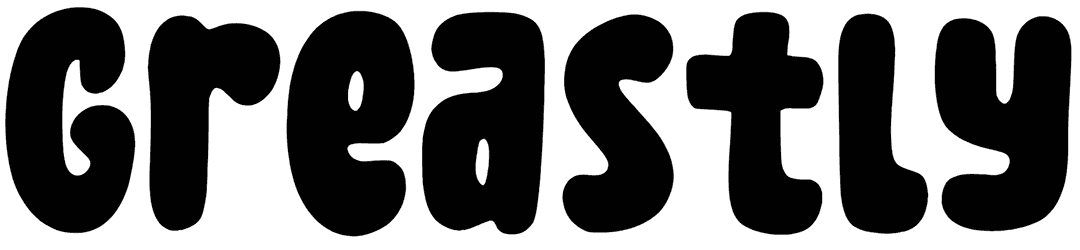
Greastly Font
Right, get kicked out of achieving this fancy font with a fun vibe before anyone else uses it. Here, thanks to RB, Greastly, a cartoon font with cool lettering goes to accentuate your presentations.
Animations, kids’ designs, and comic books are some places that will stand out by supporting the mixture of lowercase and uppercase. However, depriving us of all numbers, make sure it does not fail on the route of highlighting your words. Ready to see other rich graphics for free?